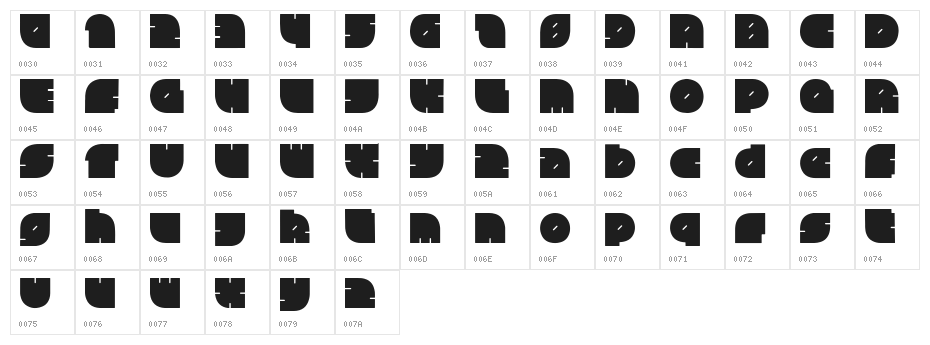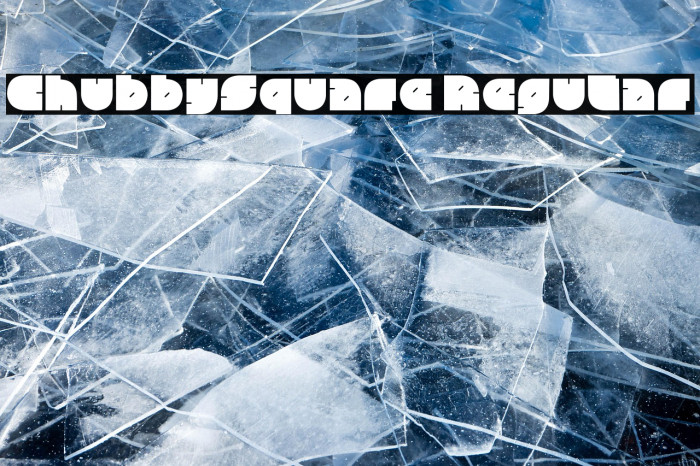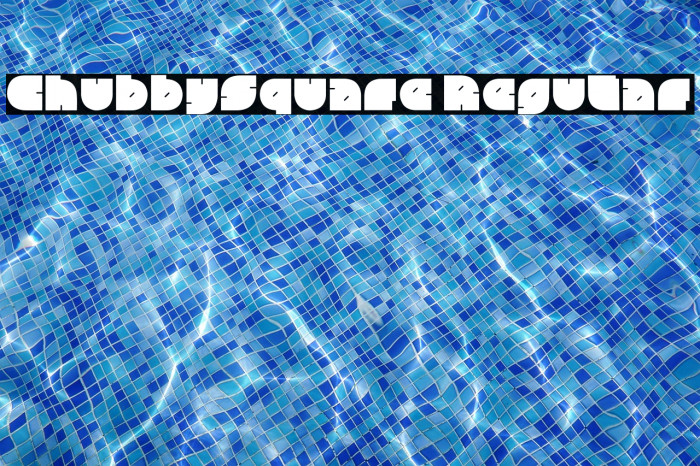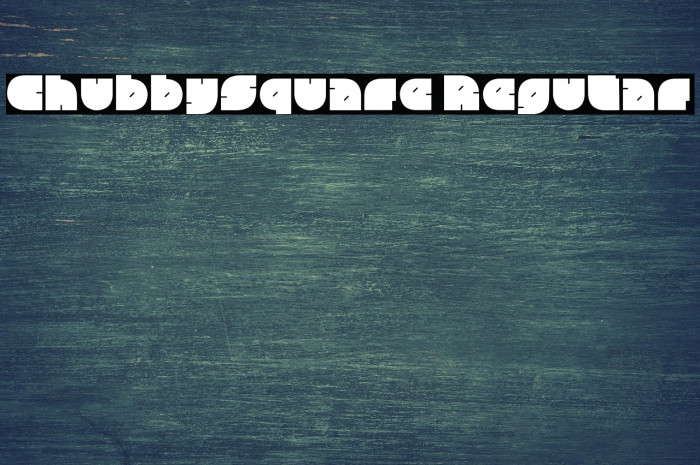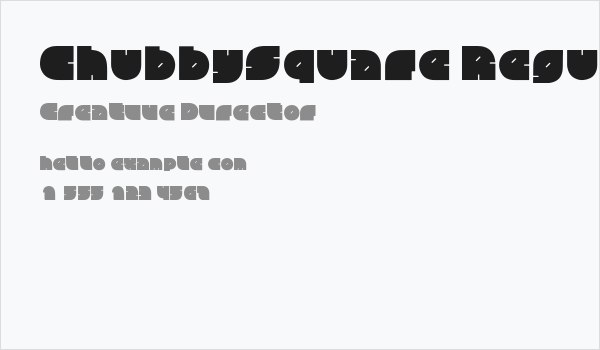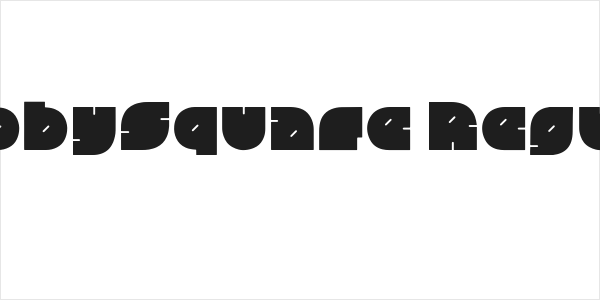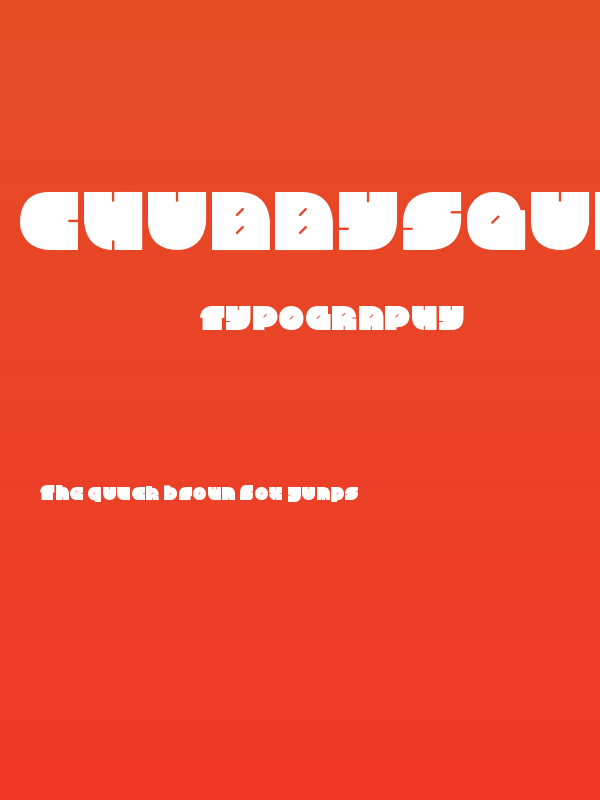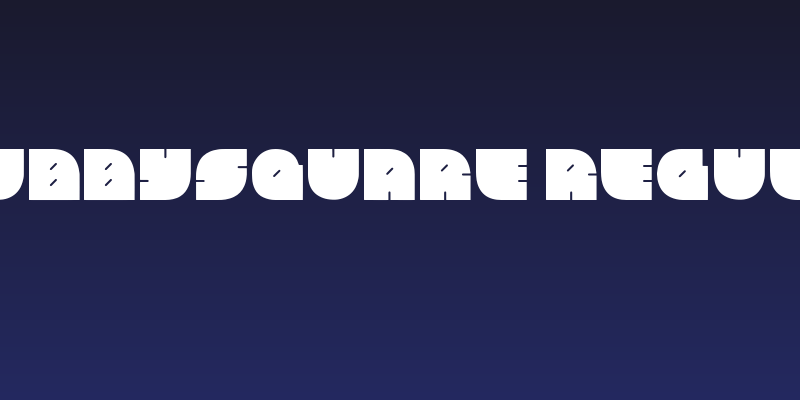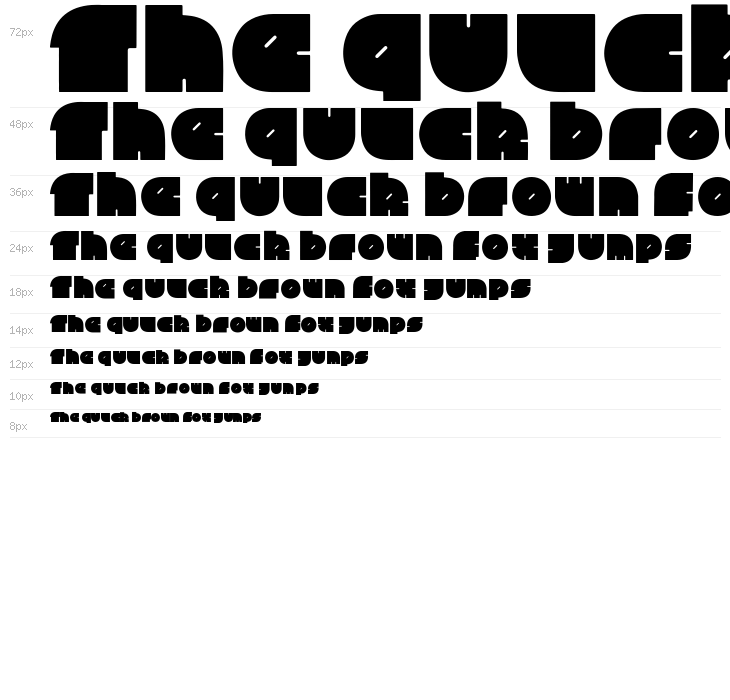
ChubbySquare Regular Font
ChubbySquare Regular Description
This font features a bold and playful design with a distinctly geometric and blocky appearance. Each character is crafted with a uniform thickness, creating a cohesive and visually striking look. The rounded edges and square shapes give it a friendly and approachable feel, while the consistent weight across all characters ensures readability. The font's unique style makes it ideal for projects that require a fun and modern touch, such as children's books, posters, or branding for creative industries.
| Proposed Projects | Ideal for children's books, playful posters, creative branding, and modern design projects. |